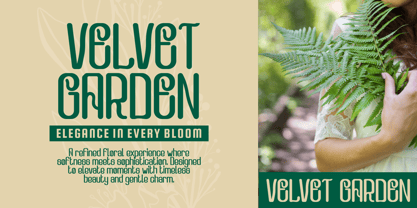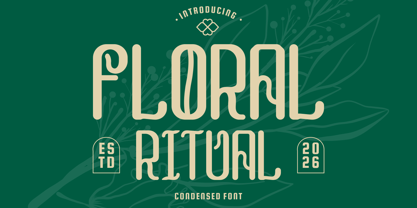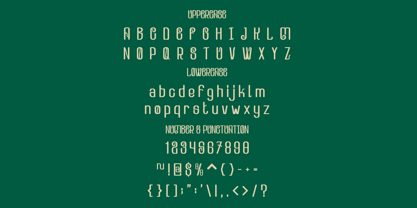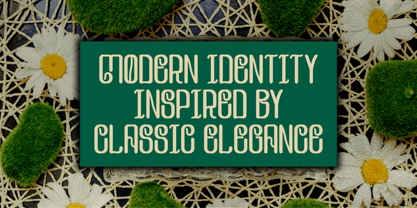
Floral Ritual
The Floral Ritual Font Family was designed by Yesie Erma Yunita and published by Shanaf. Floral Ritual contains 1 styles. More about this family
Floral Ritual Condensed Font blends botanical charm with a refined decorative character that stands out in modern branding projects. The letterforms feature a tall condensed structure with slim proportions and balanced spacing. Each character combines smooth vertical strokes with subtle ornamental curves that create an elegant handcrafted impression. The font maintains a clean silhouette while introducing artistic details that add personality without reducing readability. Its narrow construction allows longer words to fit comfortably into logos, packaging, and promotional layouts. The decorative terminals and flowing line transitions create a graceful rhythm that feels both classic and contemporary. Floral Ritual Condensed Font works exceptionally well for logo design, branding systems, product packaging, advertising materials, posters, book covers, magazine titles, greeting cards, invitations, stickers, labels, crafting projects, social media content, website headers, and promotional campaigns. The overall appearance communicates sophistication, creativity, nature, and authenticity, making it suitable for businesses that want a memorable visual identity with a decorative yet professional presence.
The font fits a wide range of industries connected to botanical, wellness, and lifestyle themes. It performs beautifully for flower shops, floral studios, plant stores, garden centers, botanical products, natural skincare brands, cosmetic products, wellness businesses, aromatherapy products, herbal products, organic food brands, tea products, candle businesses, home decor brands, gift shops, event organizers, wedding services, hospitality businesses, cafés, beverage products, and artisan packaging. Beyond floral applications, it also supports branding for creative agencies, boutique businesses, publishing projects, seasonal campaigns, and cultural events that require elegance and distinction. The condensed proportions create strong visual impact in headlines while preserving a delicate atmosphere. This balance makes the font suitable for business logos, product labels, advertising headlines, movie titles, magazine covers, packaging design, promotional graphics, and premium-looking brand communication. The decorative details help brands express craftsmanship, refinement, and natural inspiration while maintaining strong recognition across print and digital platforms.